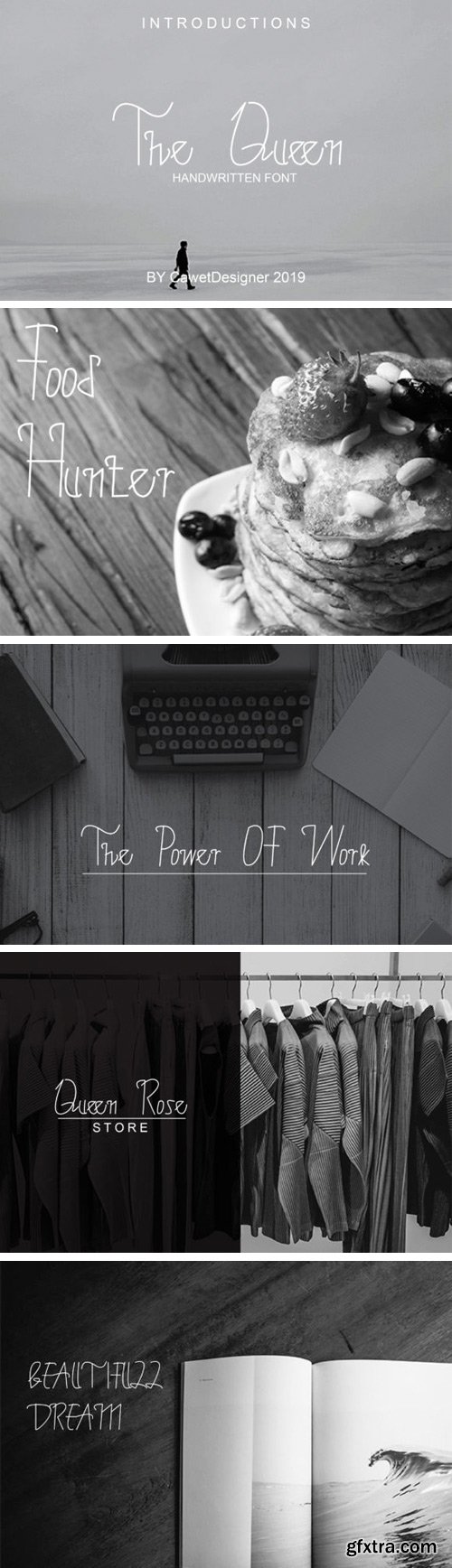
The Queen Font
The Queen is a clean handwritten condensed font. It has an elegant and unique touch which can be used to add a luxurious feel to your design. It’s perfect for branding projects, logos, wedding designs, social media posts, advertisements, product packaging, product designs, labels, photography, watermarks, innovations, stationery and every other design which needs a handwritten feel.